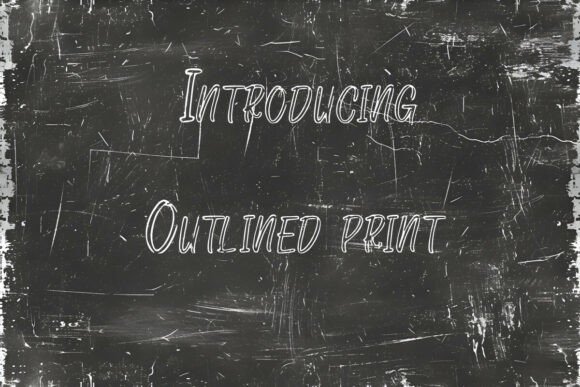
Introduction to Outlined Print Font
Have you ever stumbled upon a font that instantly transforms your design, taking it from ordinary to extraordinary? That’s the magic of the Outlined Print Font. Imagine you’re working on a project, pouring your heart and soul into it, and then you discover this game-changing font. It’s like a breath of fresh air, elevating your creation to new heights. The Outlined Print Font is more than just a design resource – it’s a key to unlocking your full creative potential.
As a designer, you’re always on the lookout for high-quality fonts that can elevate your projects. The Outlined Print Font is a valuable addition to any design arsenal, offering a unique charm that sets your work apart. Whether you’re working on a free download or a paid project, this font is sure to impress. With its transparent background and versatility, it’s the perfect choice for Cricut projects, social media presence, and even everyday items like stickers and t-shirts.
Key Features of Outlined Print Font
- High-quality design: Outlined Print Font is a premium font suitable for creative projects requiring a professional touch.
- Transparent background: The transparent background of Outlined Print Font allows for seamless integration with various design elements and backgrounds.
- Size and resolution: The font comes in a range of sizes and resolutions, from 72 dpi to 300 dpi, catering to various design needs.
- Unique characteristics: Outlined Print Font features a distinctive outline style, adding a creative touch to any design project.
- Perfect for print and digital use: This font is ideal for both print and digital applications, including business cards, brochures, and website headers.
Honest Review: Outlined Print Font
I recently had the chance to work with the Outlined Print Font and I must say, it was a pleasant experience. As a designer, I’m always on the lookout for high-quality fonts that can elevate my creative project. This font did just that.
- ✨ High-quality design: The Outlined Print Font has a crisp and clean design that makes it perfect for any project.
- ✨ Versatile: The font is great for both digital and print projects, making it a valuable design resource.
- ✨ Transparent background: The font has a transparent background, making it easy to use with any design element.
However, I did encounter a few limitations.
- ⚠️ Limited character set: The font only includes a limited character set, which can be a problem for longer texts.
- ⚠️ Not suitable for small text: Due to its bold design, the font is not suitable for small text sizes.
Overall, I’m impressed with the Outlined Print Font. While it has some limitations, its high-quality design and versatility make it a valuable addition to any designer’s toolkit.
The Outlined Print Font is perfect for a variety of design projects, including business cards, brochures, posters, and social media graphics. It’s also a great choice for designers who want to add a touch of elegance and sophistication to their designs.